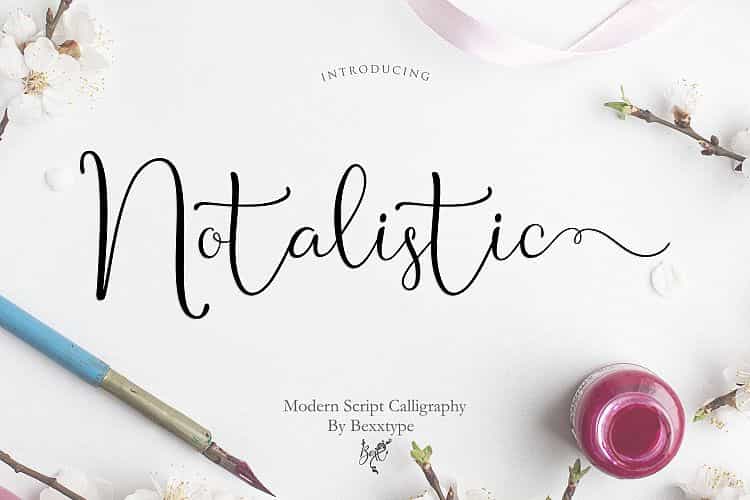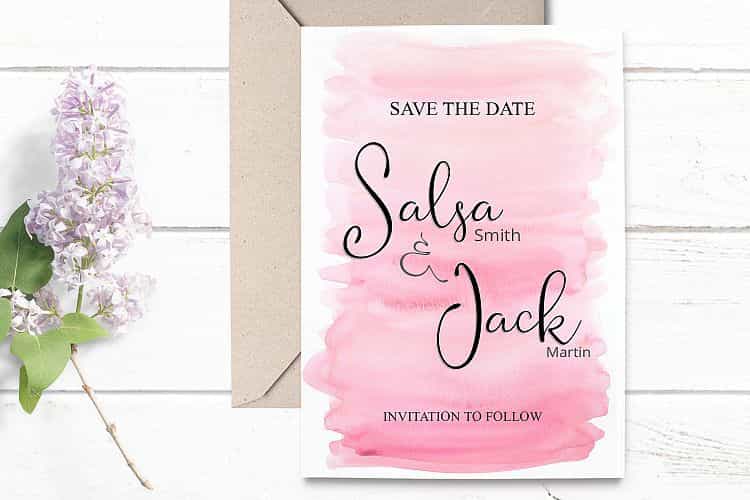
Introducing Notalistic Script Font. Therefore, on the invitation like greeting cards, branding materials, business cards,, quotes, posters and more are so beautiful. The Notalistic Script has 387 glyphs. The alternative characters were divided into several Open Type features like Swash, Stylistic Sets, Stylistic Alternates and Contextual Alternates.